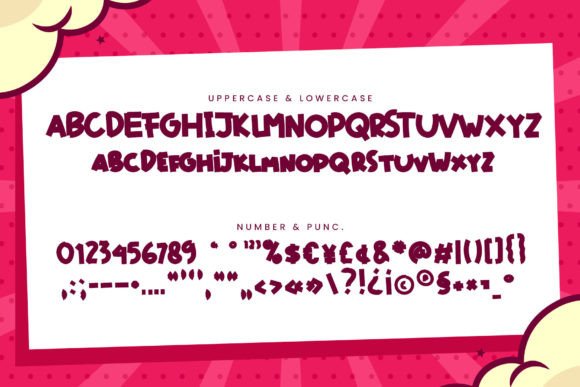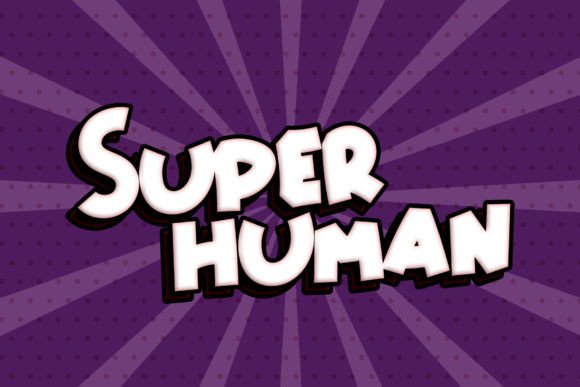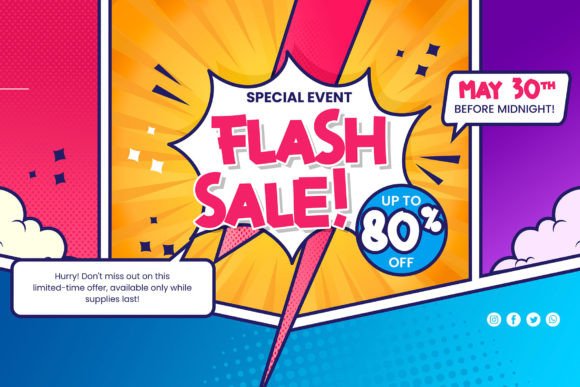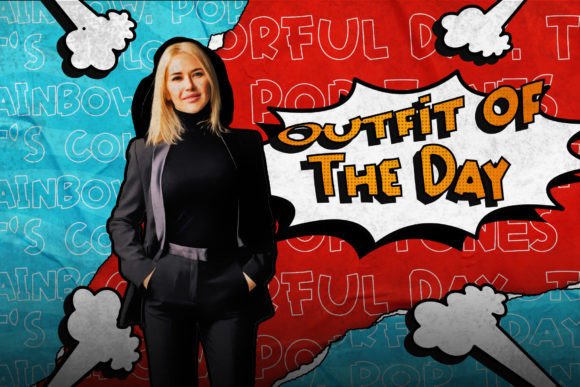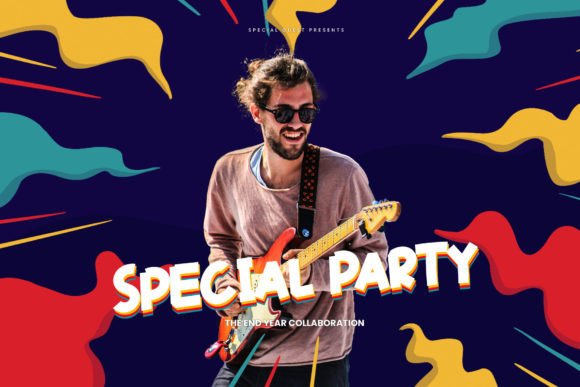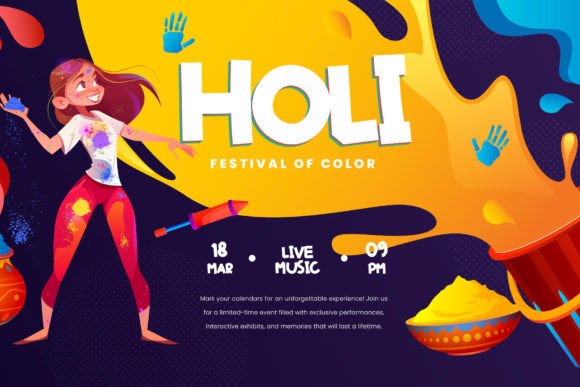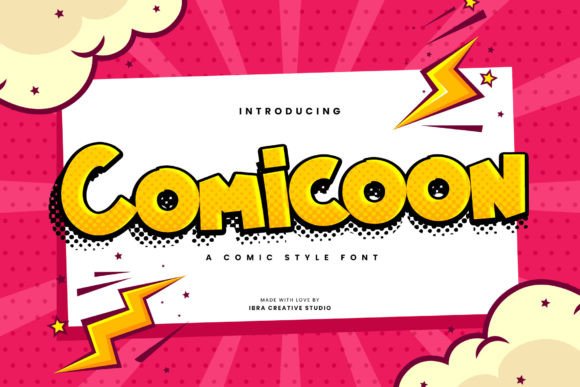
Introducing Comicoon Font: Unleash the Vibrancy of Comic-Style Typography
Are you ready to infuse your designs with a burst of fun and liveliness? Look no further than Comicoon, a vibrant and playful comic-style font that’s sure to capture the essence of joyful storytelling. Inspired by the bold and dynamic lettering found in classic comic books, Comicoon is the perfect choice for designers and crafters looking to add a touch of whimsy to their projects.
The Inspiration Behind Comicoon
Comicoon draws its inspiration from the iconic lettering styles found in traditional comic books. Each letter is carefully crafted to evoke the sense of energy and excitement that comes with reading a thrilling comic book series. The font’s design is rooted in the idea of bringing a sense of playfulness and adventure to typography, making it an ideal choice for projects that require a dash of creativity and imagination.
Key Features of Comicoon Font
- Expressive Details: Each letter in Comicoon is adorned with expressive details that are reminiscent of hand-drawn illustrations. These details add a touch of personality to the font, making it perfect for designs that require a human touch.
- Whimsical Curves and Exaggerated Shapes: Comicoon’s design is characterized by its whimsical curves and exaggerated shapes. These features give the font a dynamic and lively feel, making it perfect for comic books, graphic novels, and playful branding.
- Vibrant and Playful: Comicoon is a font that bursts with fun and liveliness. Its vibrant and playful design makes it an excellent choice for projects that require a dash of energy and excitement.
Use Cases for Comicoon Font
Comicoon is a versatile font that can be used in a variety of design projects. Here are some use cases where Comicoon can shine:
- Comic Books and Graphic Novels: Comicoon is a natural fit for comic books and graphic novels. Its bold and dynamic design makes it perfect for titling, headings, and dialogue.
- Playful Branding: Comicoon’s playful and whimsical design makes it an excellent choice for brands that want to add a touch of fun to their identity.
- Illustrations and Cartoons: Comicoon’s hand-drawn feel makes it perfect for illustrations and cartoons that require a personal touch.
Why Choose Comicoon Font?
So, why should you choose Comicoon for your design projects? Here are a few reasons:
- Unique and Eye-Catching: Comicoon’s unique design makes it stand out from other fonts. Its bold and dynamic lettering is sure to grab attention and leave a lasting impression.
- Easy to Read: Despite its playful design, Comicoon is easy to read and understand. Its clear and legible lettering makes it perfect for designs that require a touch of personality.
- Versatile: Comicoon can be used in a variety of design projects, from comic books and graphic novels to playful branding and illustrations.
Comicoon is a delightful typeface that embodies the spirit of adventure and imagination. Its vibrant and playful design makes it perfect for designers and crafters looking to add a touch of fun to their projects. With its expressive details, whimsical curves, and exaggerated shapes, Comicoon is sure to transport your designs to a colorful world of comics and illustration. So, why wait? Unleash the power of Comicoon and bring a sense of energy and excitement to your designs!